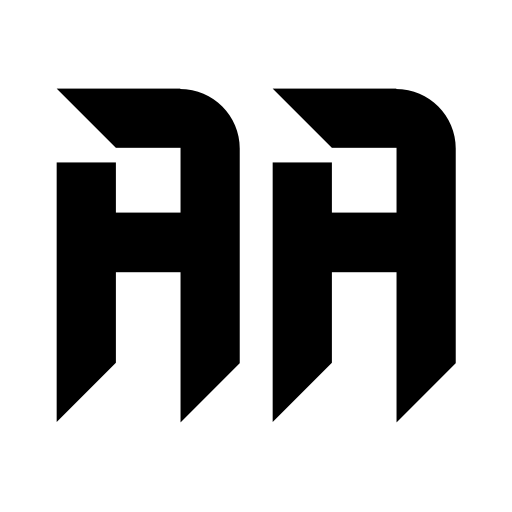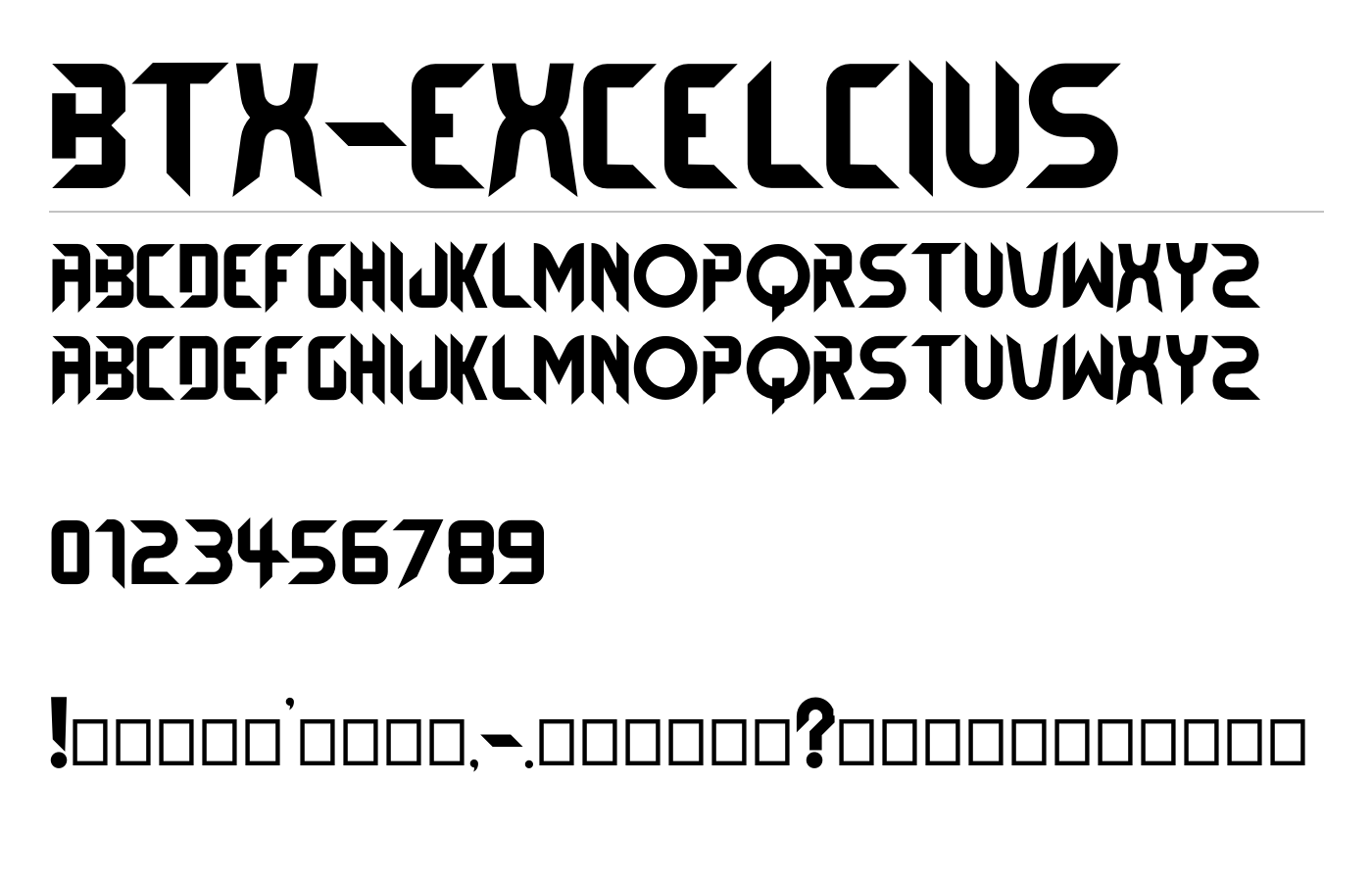
BTX-EXCELCIUS is a bold, geometric sans serif typeface with a futuristic and angular design, featuring sharp edges and unique cut-out details that give it a strong, tech-inspired personality. Its uppercase-only style and compact letterforms make it ideal for striking headlines, logos, and branding where a modern, edgy look is desired. This font works best in creative and high-impact contexts like posters, technology brands, and sci-fi themed projects.
BTX-EXCELCIUS Font
About BTX-EXCELCIUS Font